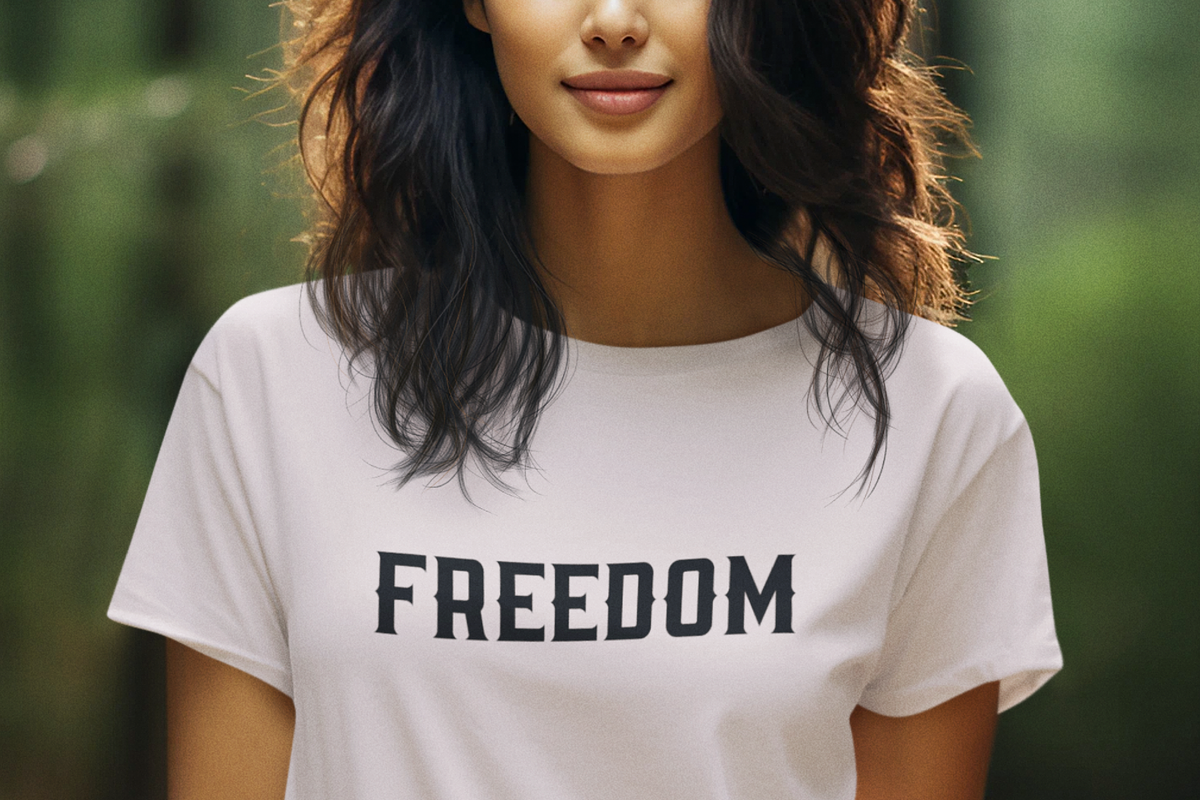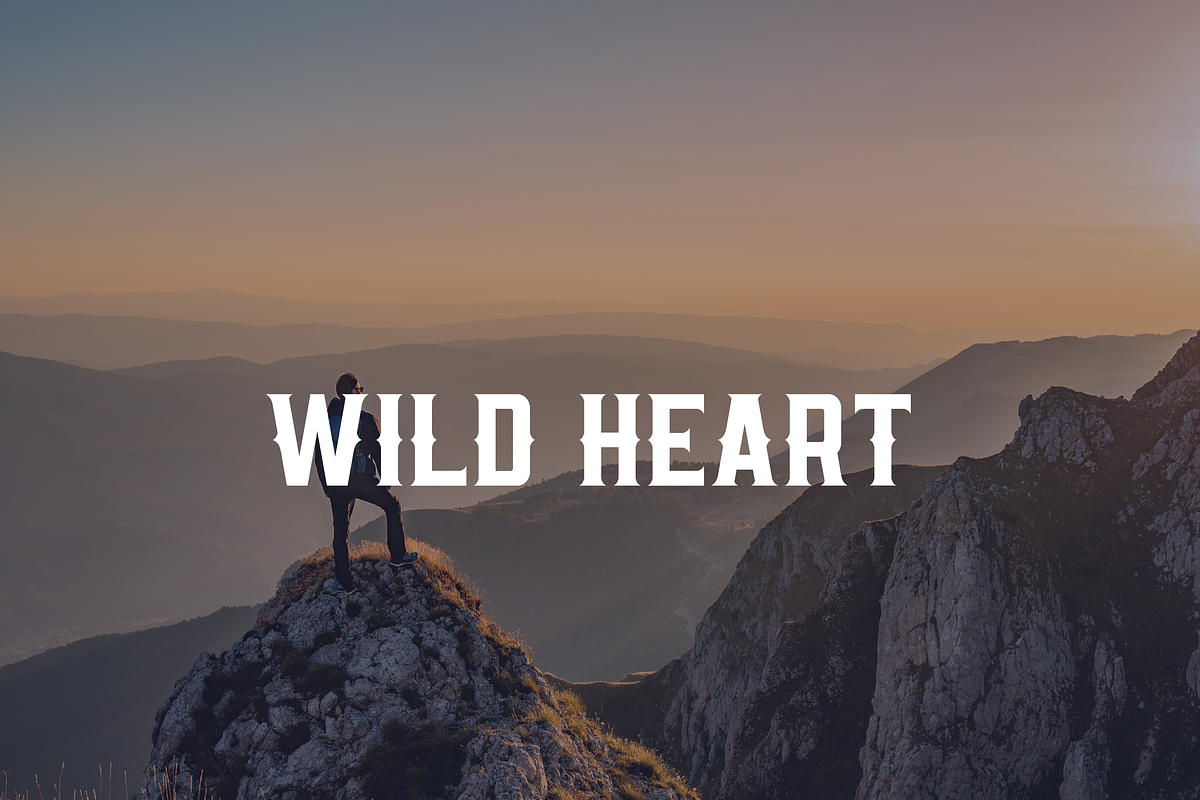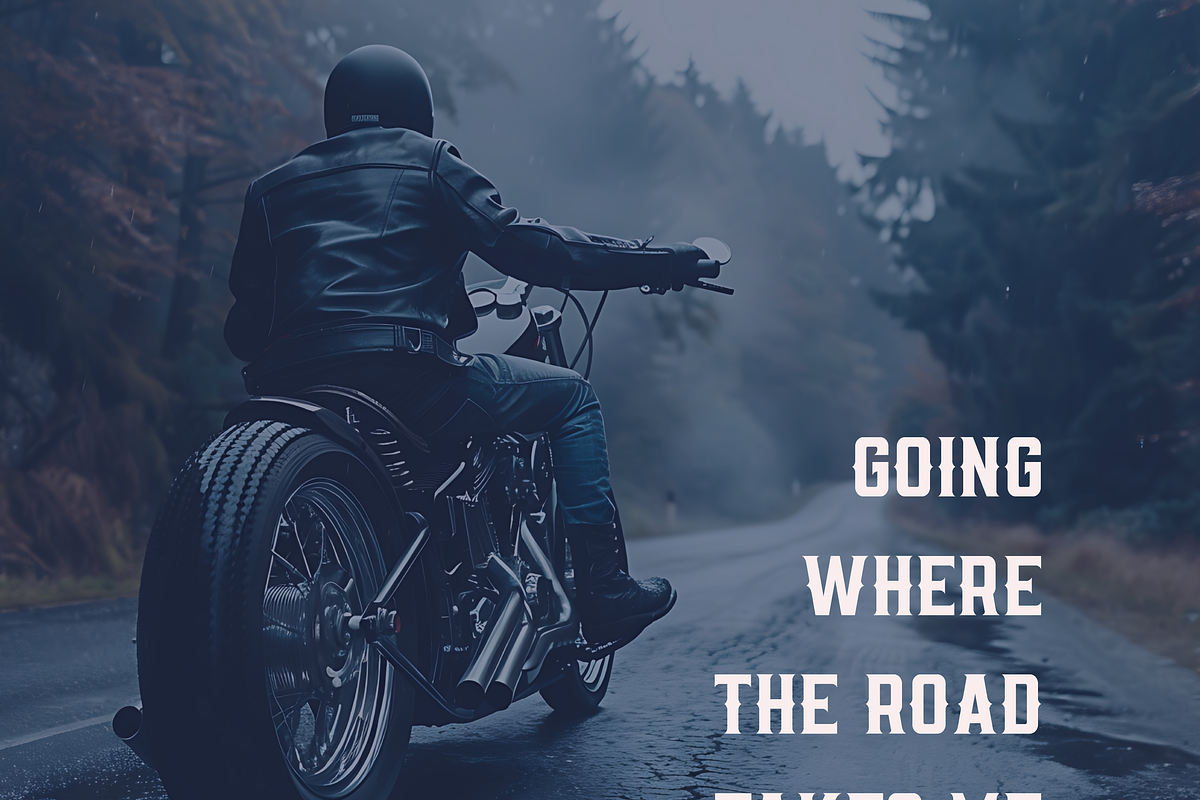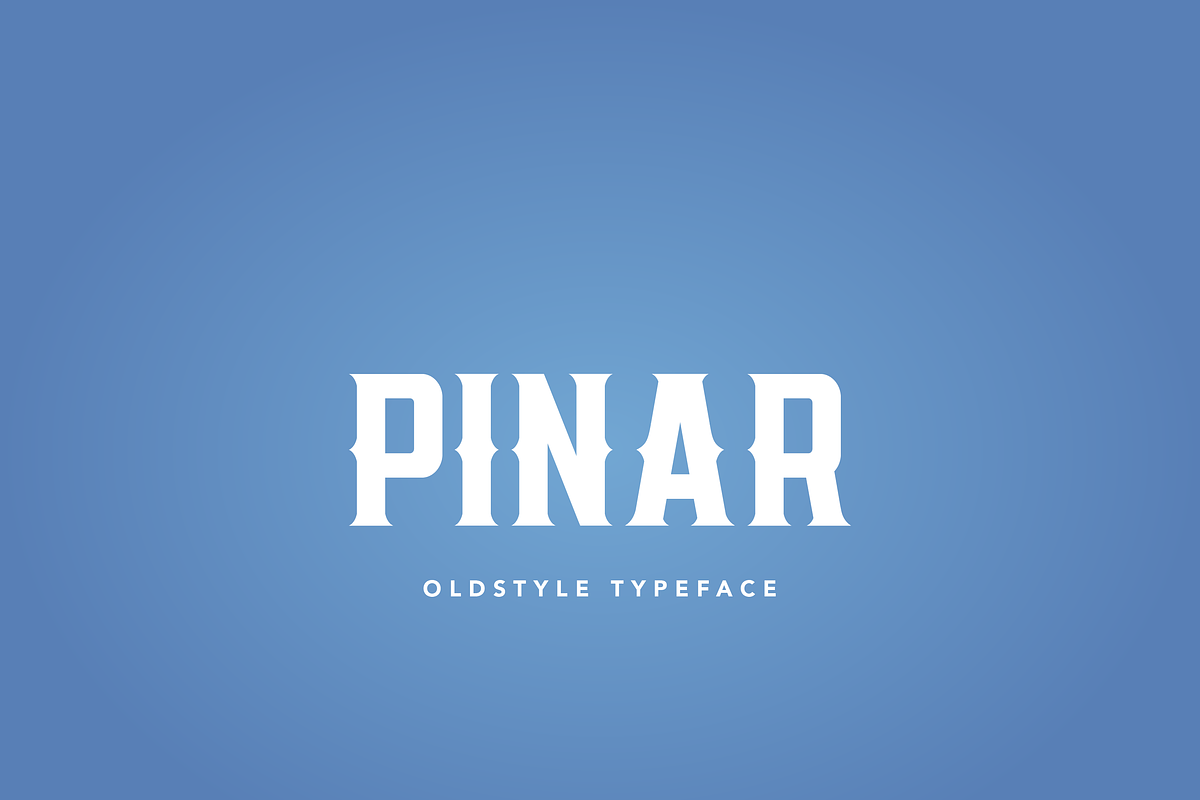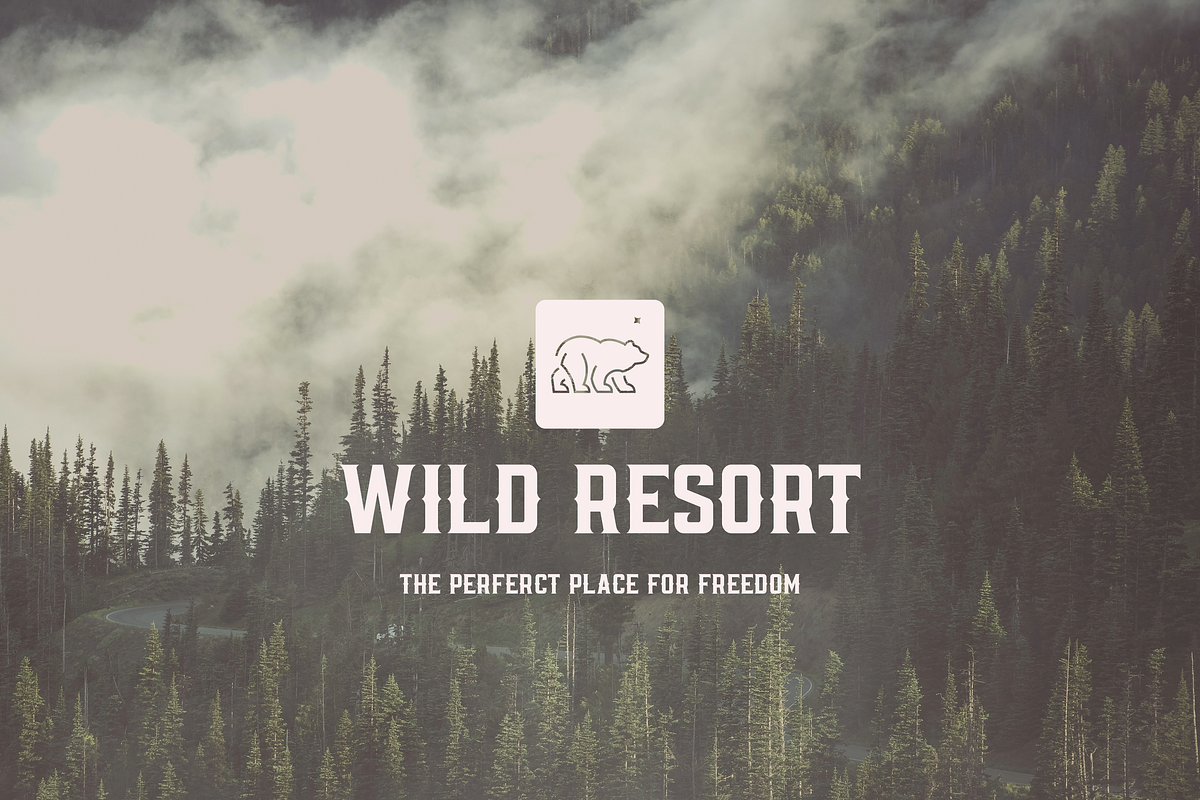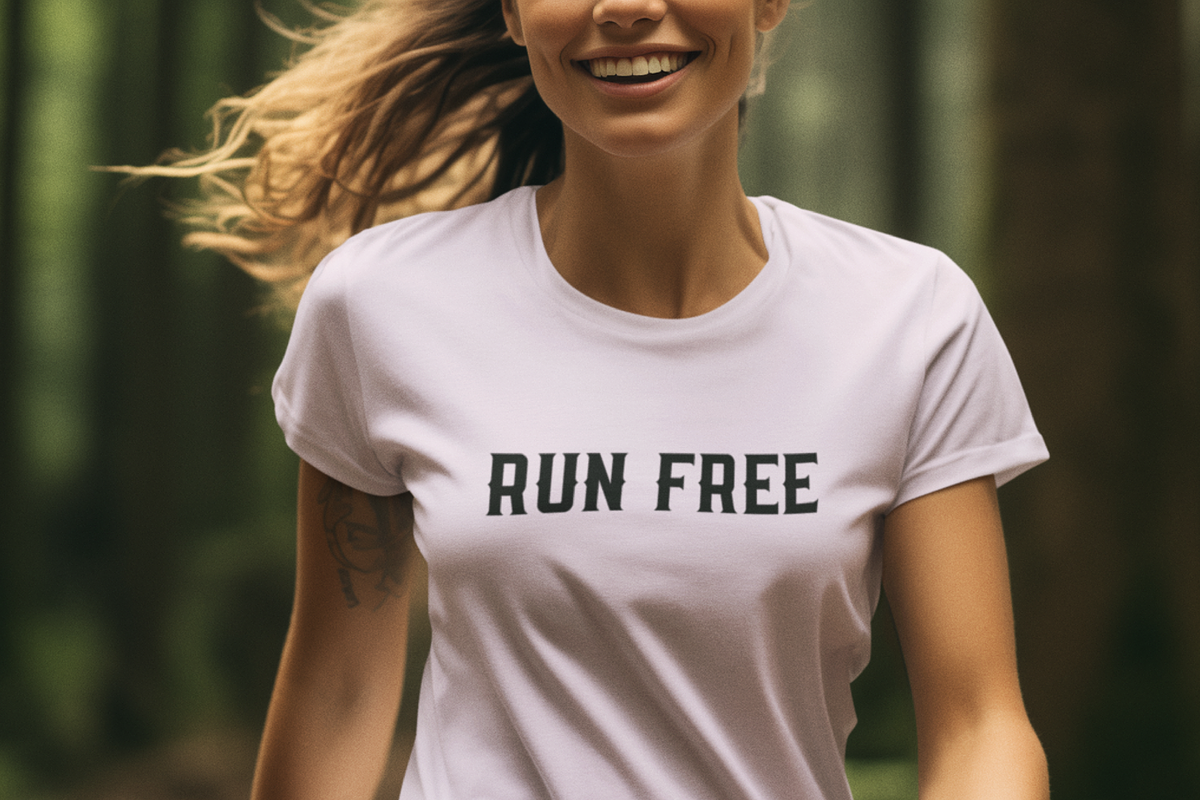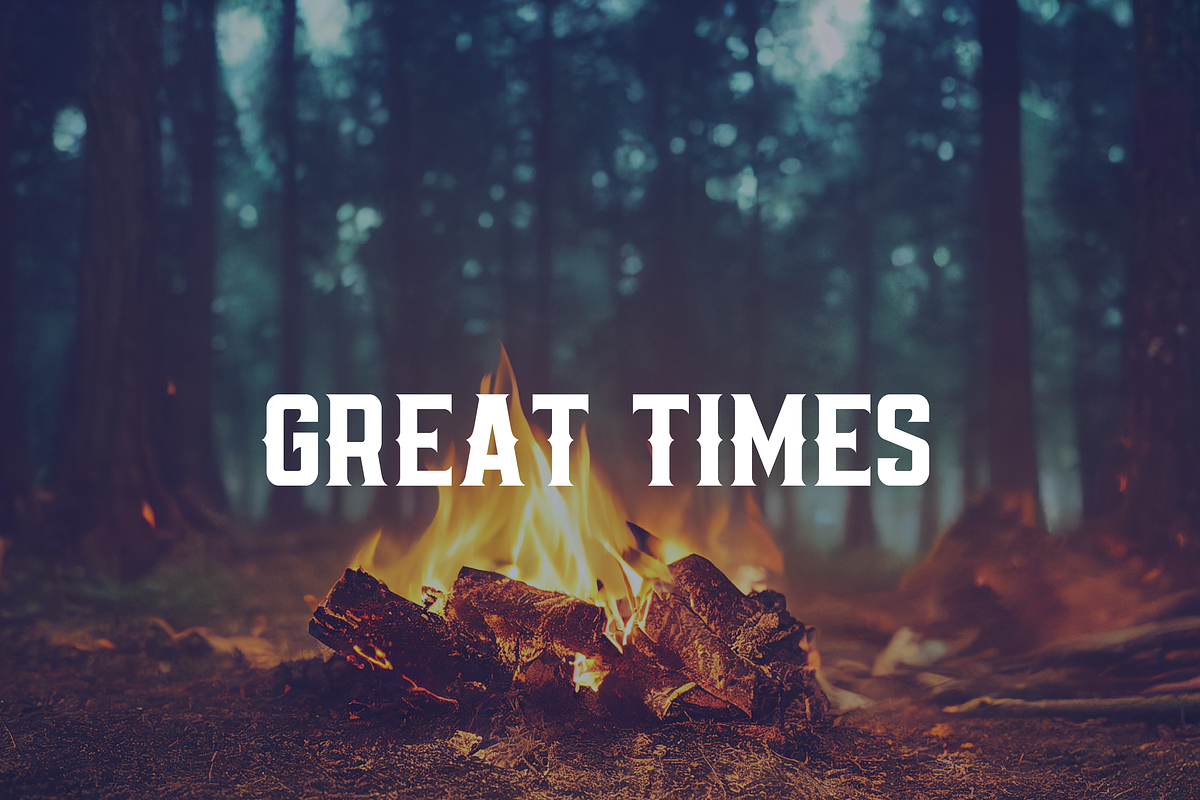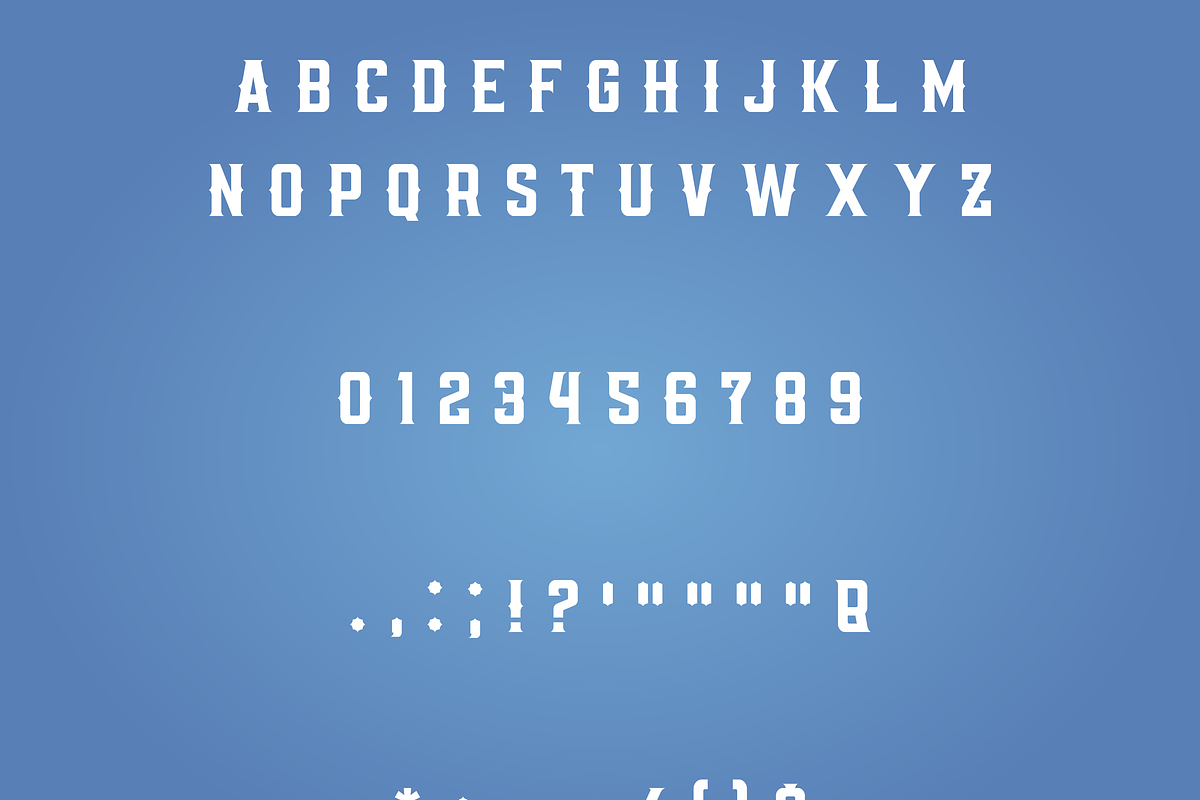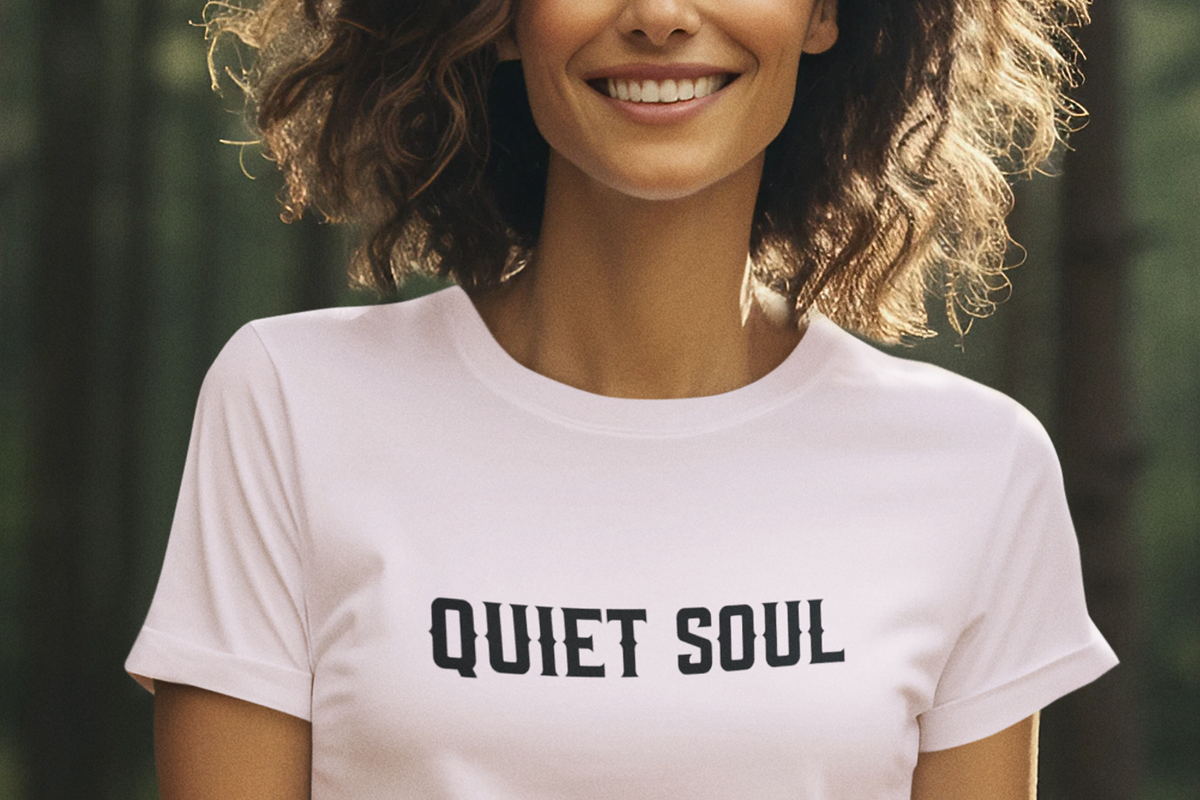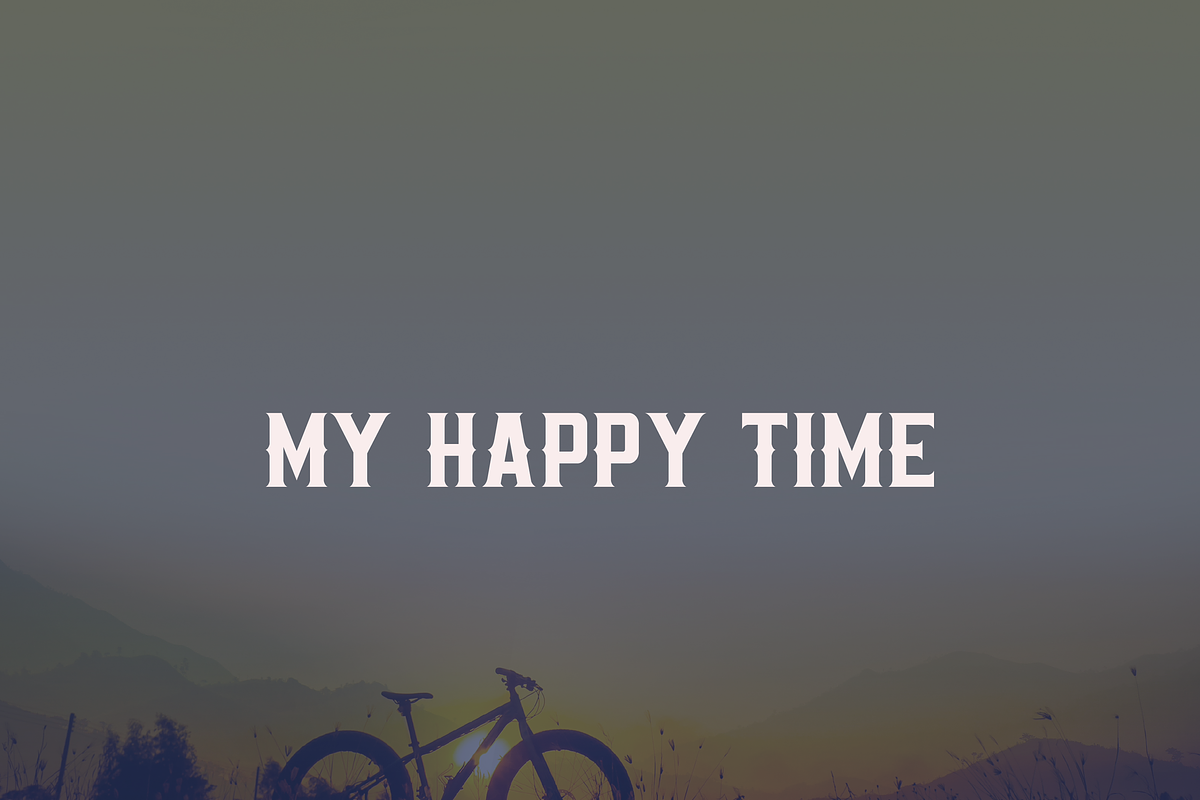
Pinar Oldstyle Serif
Pinar – Elegant & Bold Display Font
Pinar is a striking display font that seamlessly blends elegance with a bold personality. Its tapered terminals and soft corners create a refined and sophisticated look, while the spurred edges inject character and uniqueness. Designed to stand out, Pinar is perfect for impactful branding, eye-catching logos, stylish posters, and more.
Pinar a old style ALL CAPS font.